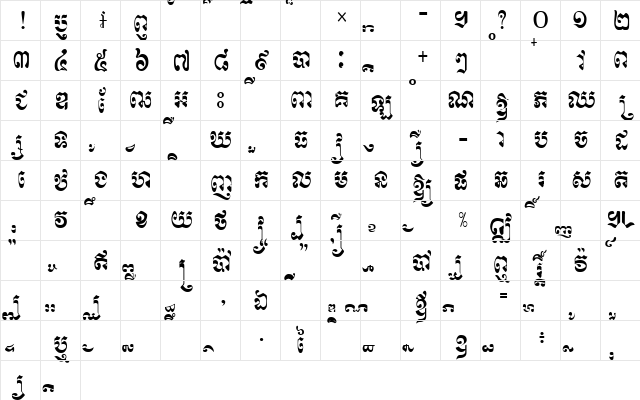
Rachany New Normal
Design Context for Rachany New
Rachany New is a composed and adaptable typeface that performs quietly and consistently across a wide range of design contexts.